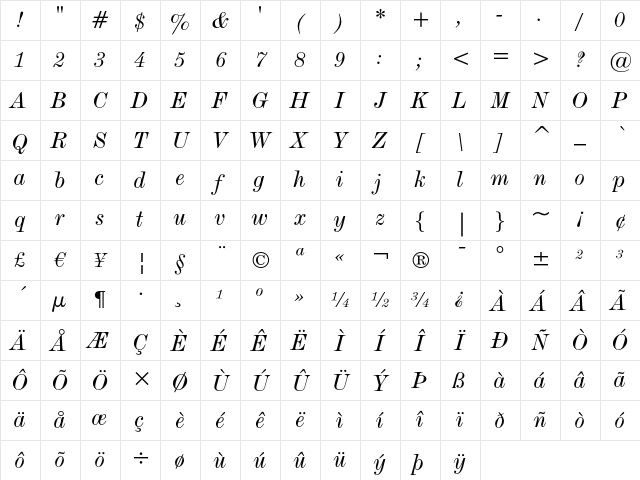
De Vinne Italic Text
Style: Italic Text
De Vinne Family
De Vinne Italic Text
Design Context for De Vinne
De Vinne is a composed and adaptable typeface that performs quietly and consistently across a wide range of design contexts. The slanted form adds forward momentum and visual energy.